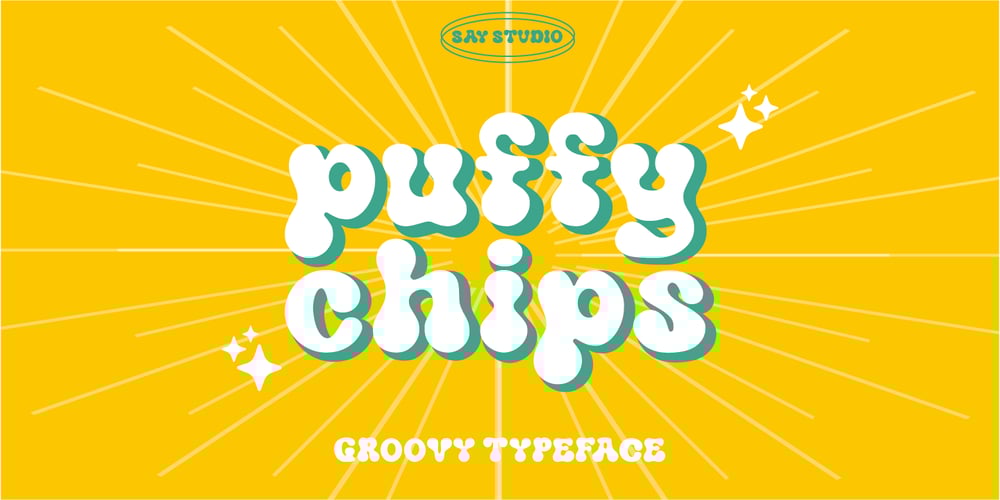
Puffy Chips Font Family was designed by Mussyayin and published by Say Studio. Puffy Chips contains 1 styles and family package options. Hallo everyone, puffy chips!puffy chips – it’s groovy,retro, bold, chubby, and playful, chubby typeface of circle in groovy style. Perfect for make any project like header, quote, layout magazine and other. Even better if you use it on 60s and 70s design projectEmbracing the psychedelia era combine with groovy style, open type features such as stylistic alternates and multilingual supportWhat’s you get?- Unique letterforms- Works on PC & Mac- Accessible in the Adobe Illustrator, Adobe Photoshop, Microsoft Word even work on Canva!- PUA Encoded Characters- Fully accessible without additional design software.Have a wonderful day,*Say Studio*